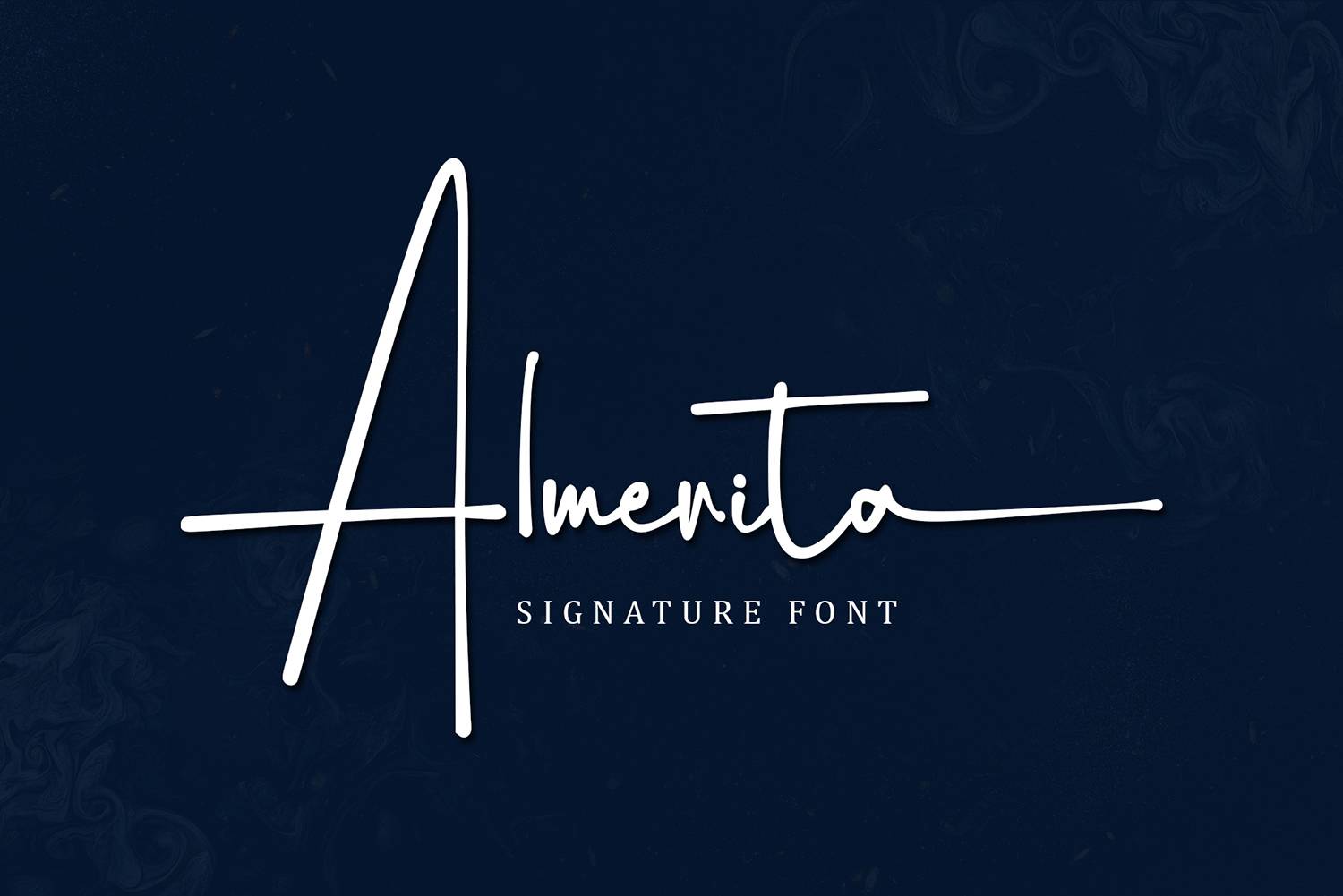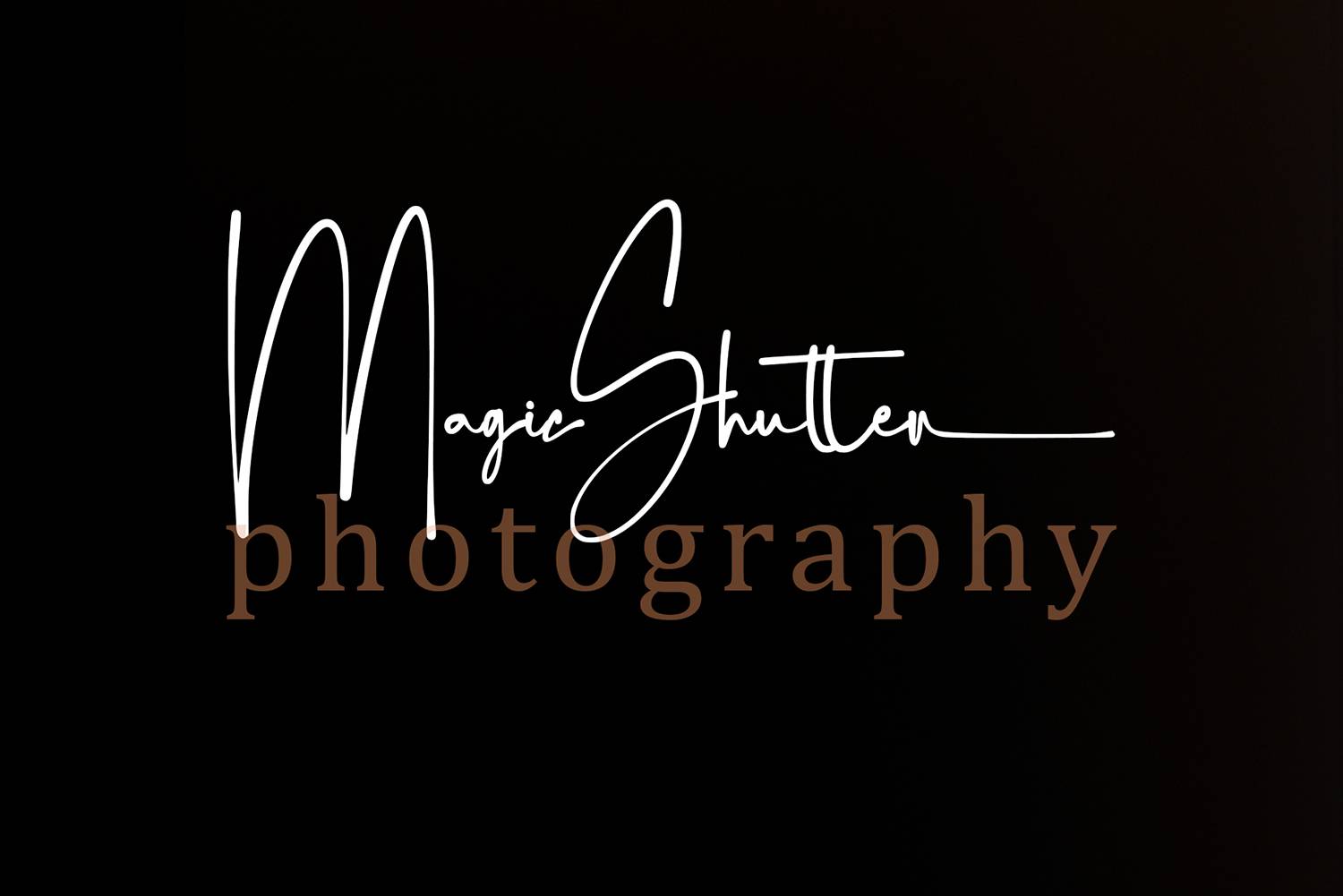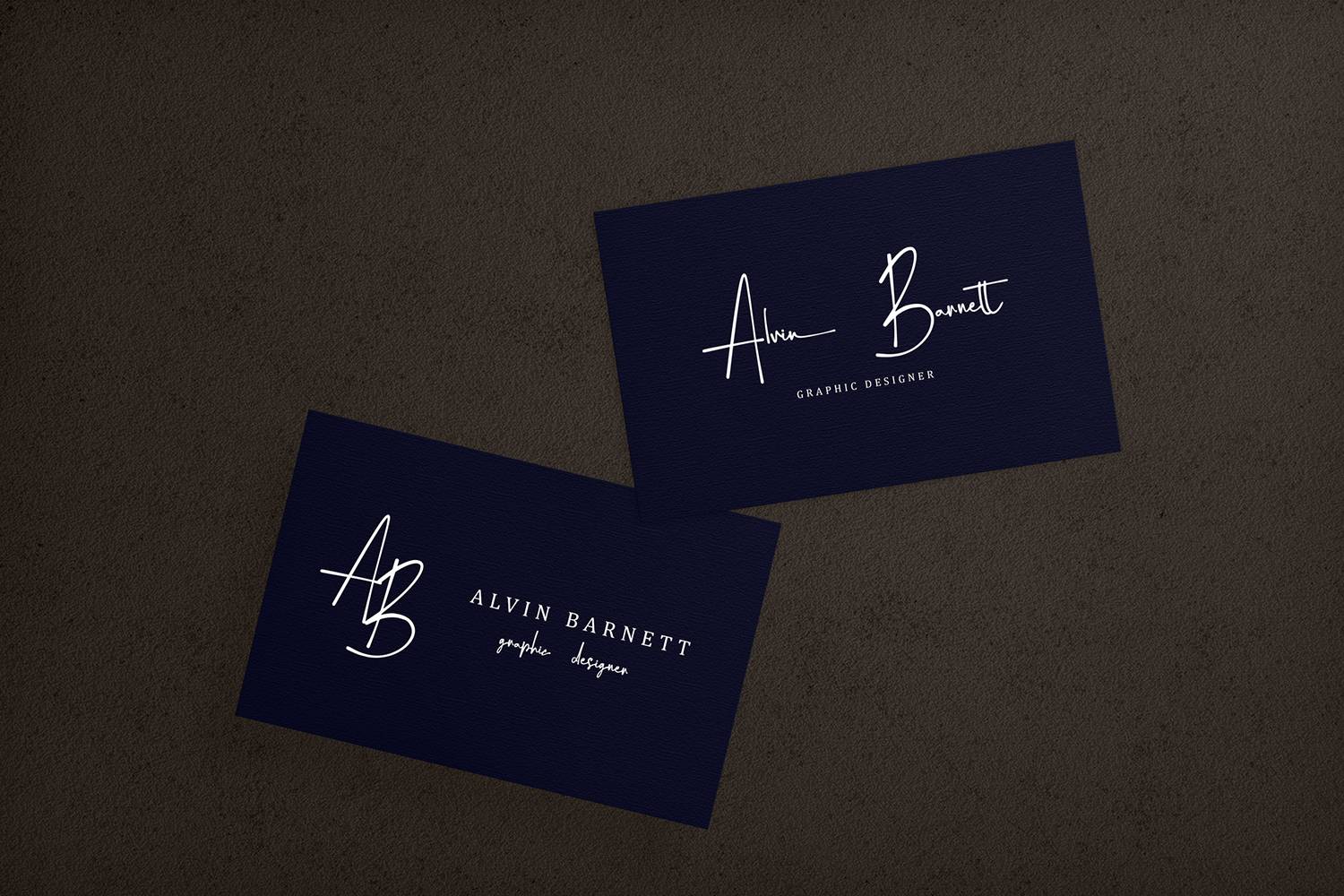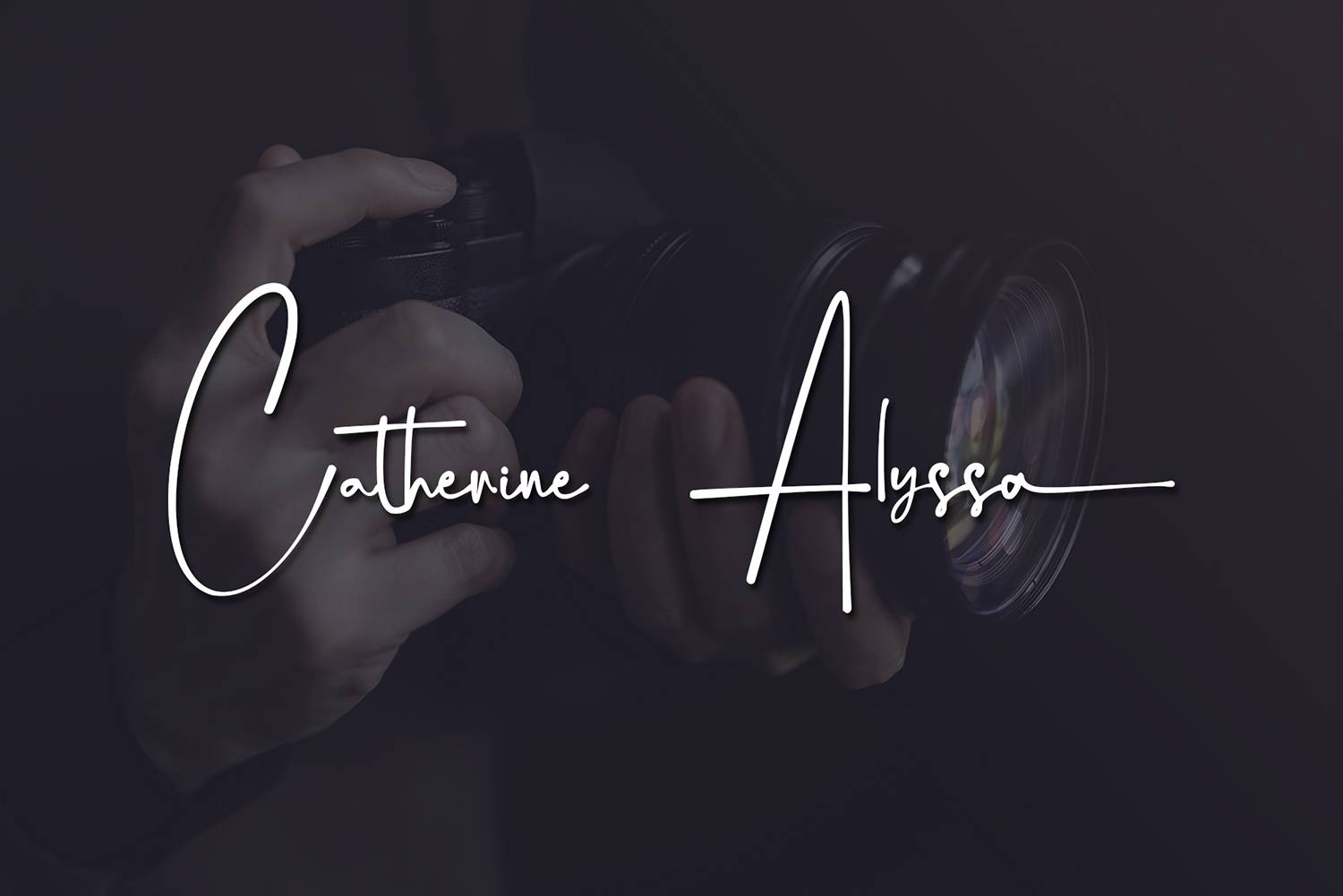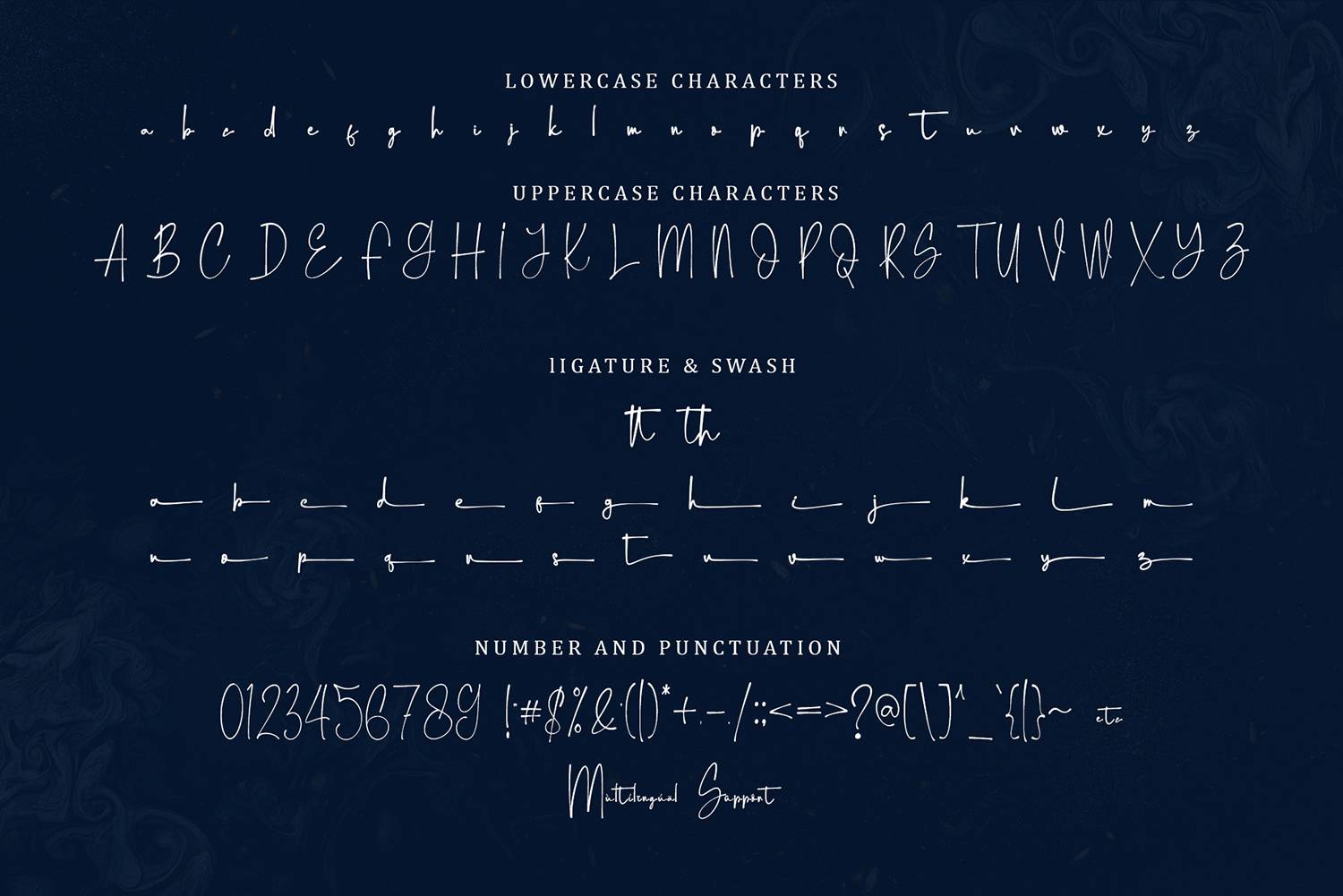
Almerita is a delicate, handwritten script font characterized by its tall, slender letterforms and fine, airy strokes that create a light, elegant impression. Its casual yet refined style makes it perfect for personal branding, invitations, and creative projects where a touch of individuality and sophistication is desired. This font shines in designs that benefit from a modern, artistic flair with a natural, personal feel.
Almerita Font
About Almerita Font